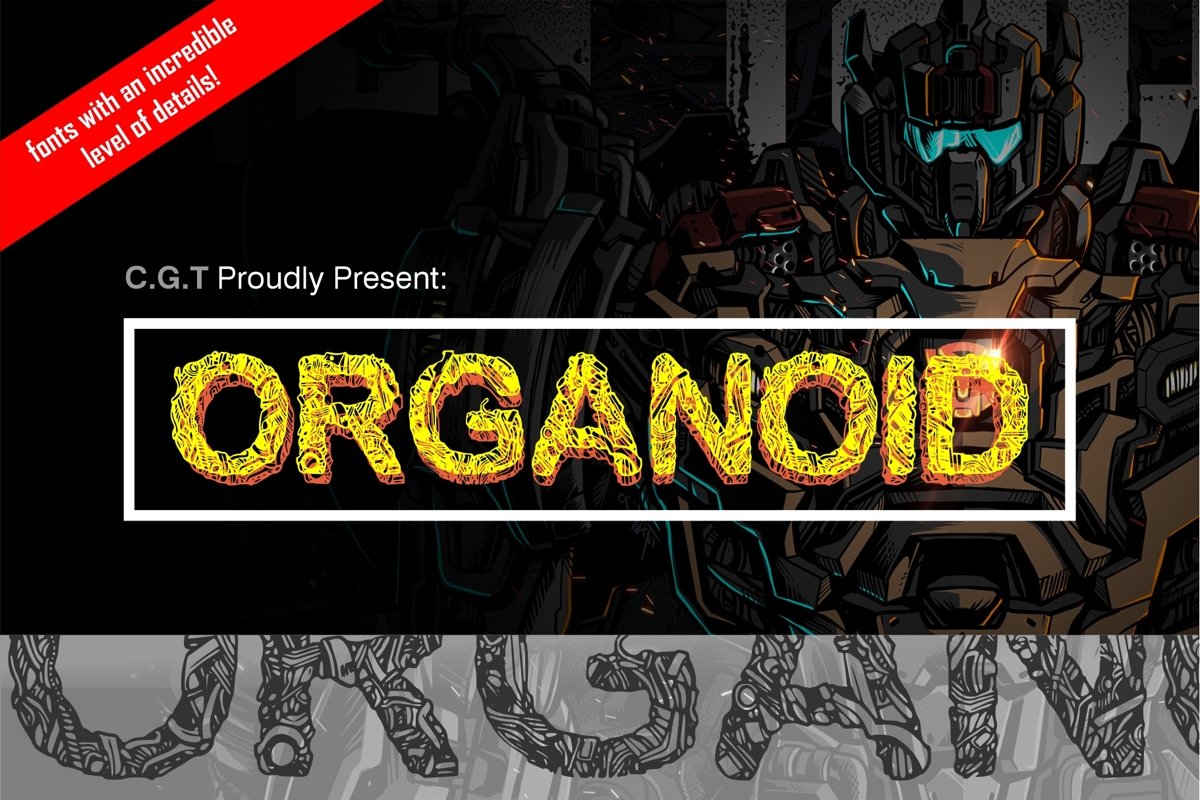
Organoid
Organoid Typeface is a vintage display type. It suitable for any vintage type needs and more Happy creating.Very suitable for you who do exploration